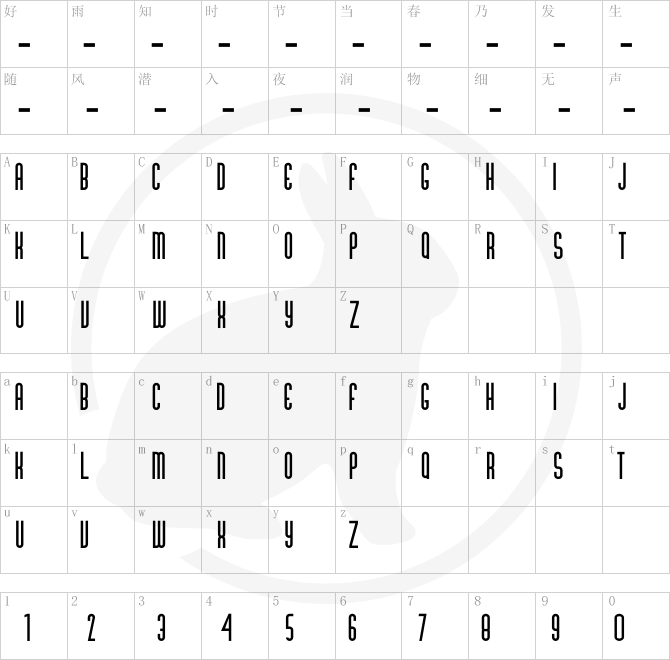
GabbaAllCaps-Regular.otf is a very beautiful artistic font, GabbaAllCaps-Regular.otf is widely used in the design and printing of various books and pictures,GabbaAllCaps-Regular.otf has a strong visual impact,GabbaAllCaps-Regular.otf is a commonly used font in newspapers, magazines and books, and is used in posters, e-commerce Poster design, store design, logo design, font design and other fields.GabbaAllCaps-Regular.